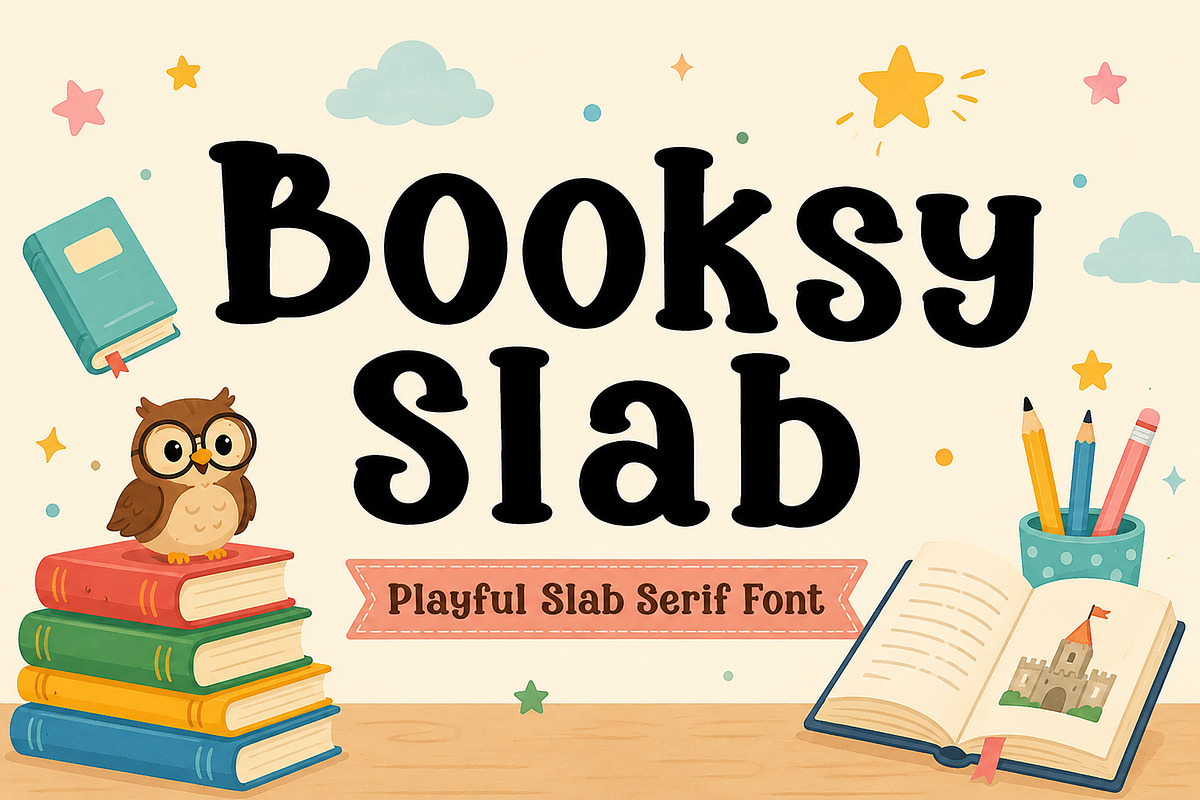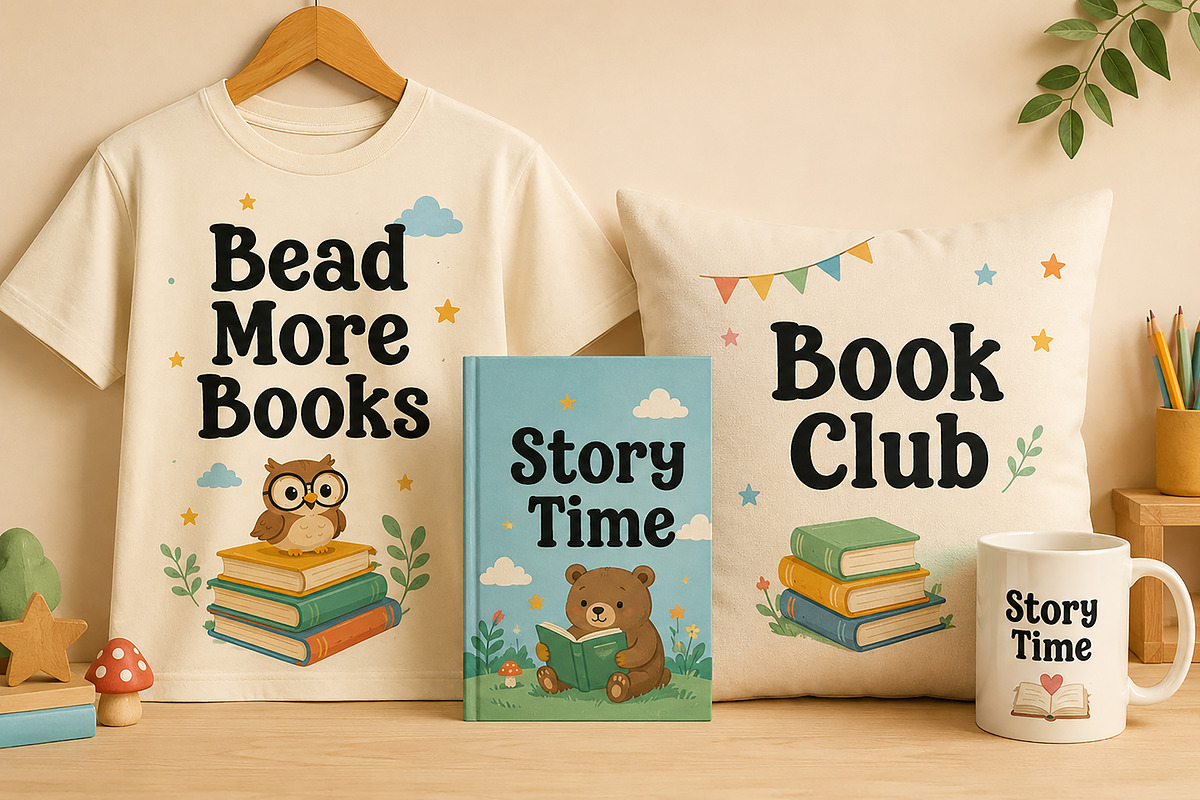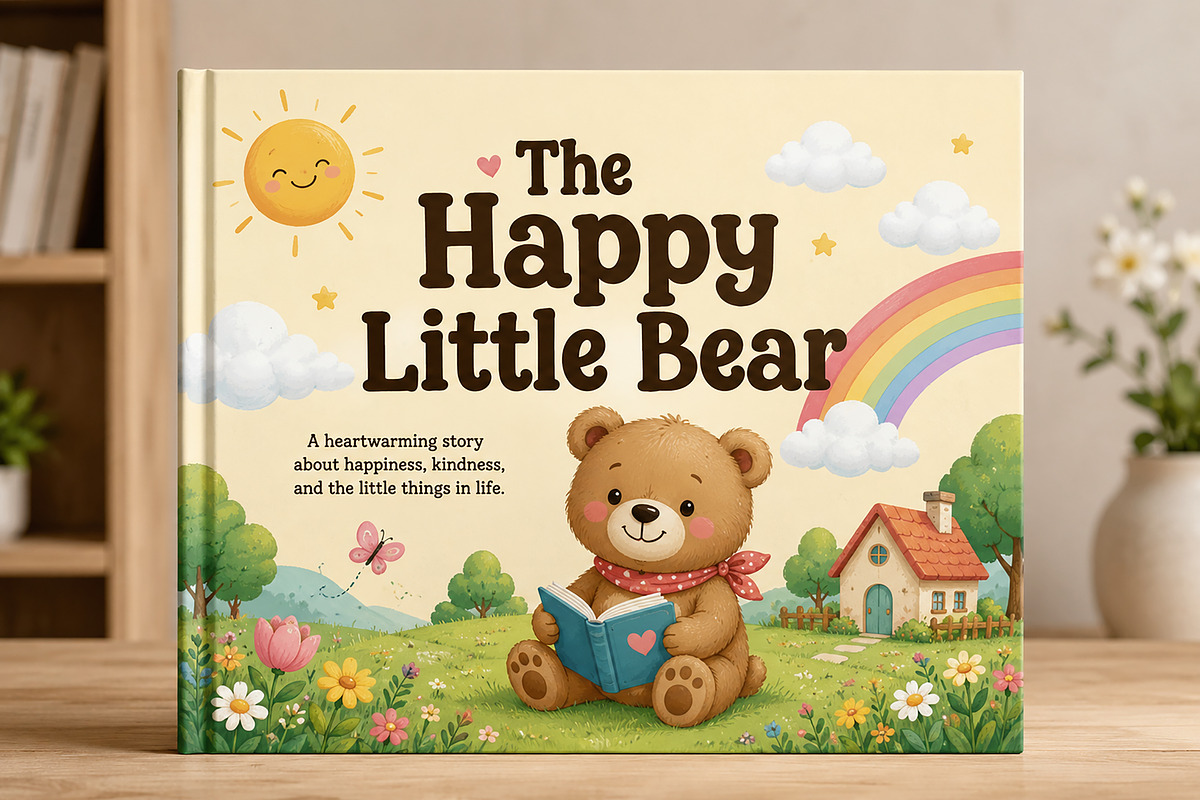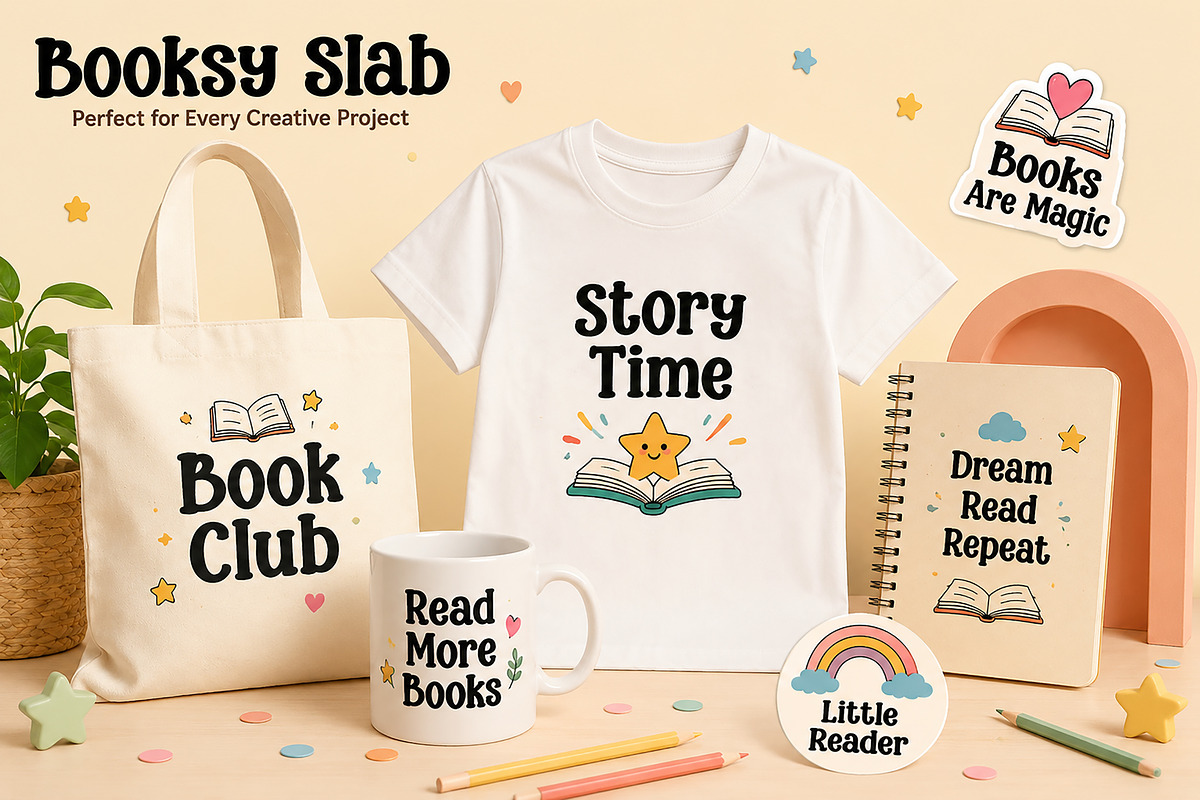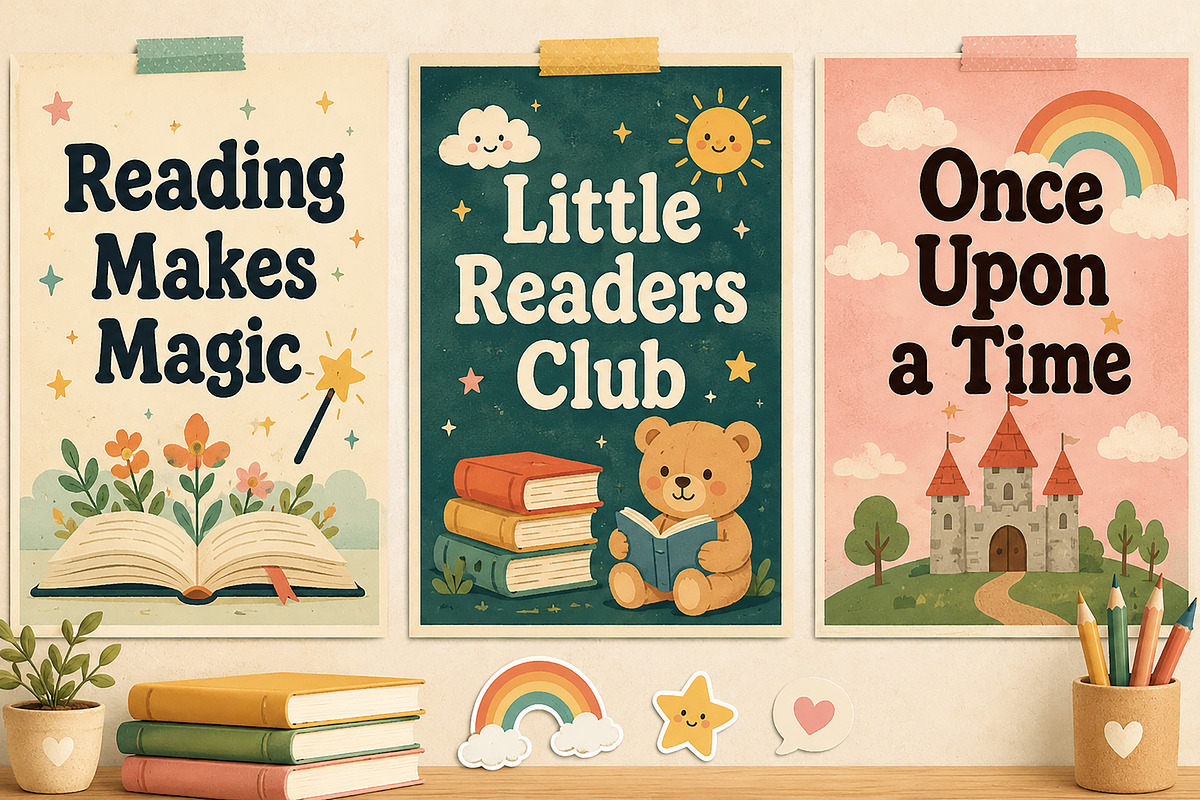
Booksy Slab
Booksy Slab – Playful Slab Serif Font
Booksy Slab is a charming and playful slab serif font inspired by children’s storybooks, classroom creativity, and joyful reading adventures. With its bold letterforms, soft curves, and friendly personality, this typeface is designed to bring warmth and imagination to your projects.
Perfect for children's books, educational materials, classroom posters, reading programs, nursery decor, book covers, playful branding, packaging, Cricut crafts, invitations, stickers, and creative merchandise. Whether you're designing a storybook cover, a library poster, or a fun kids-themed product, Booksy Slab adds a cheerful and approachable touch.
Its strong slab serif structure ensures excellent readability while maintaining a whimsical and playful appearance that appeals to both children and parents.
Children's Book Covers
Storybook Titles
Classroom Posters
Educational Resources
Reading Club Designs
Nursery Decor
Kids Apparel
Stickers & Labels
Cricut & Silhouette Projects
Tote Bags, Mugs & Merchandise
Playful Branding
Bring imagination, learning, and creativity together with Booksy Slab — a playful font made for little readers and big adventures.